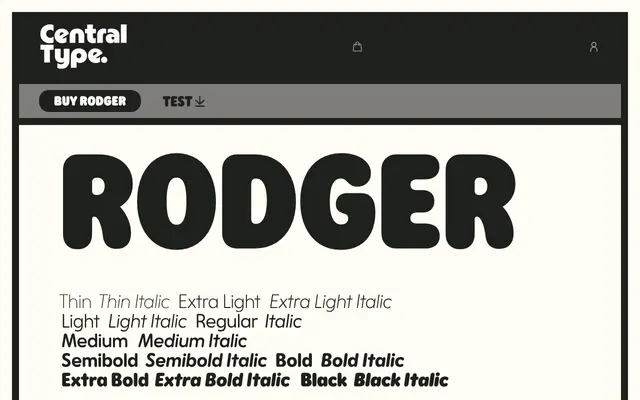
A display serif from Central Type, designed for headline and identity work.
Rodger is a display serif released by Central Type, intended for use at large sizes in editorial and branding contexts. The page offers limited detail on its full character set or weight range, but the typeface is presented as a standalone display offering. Its design sits within Central Type's broader catalogue of considered, contemporary typefaces.
Rodger appears to be a display-oriented serif with distinctive character, suited to headline and branding use rather than extended text setting.